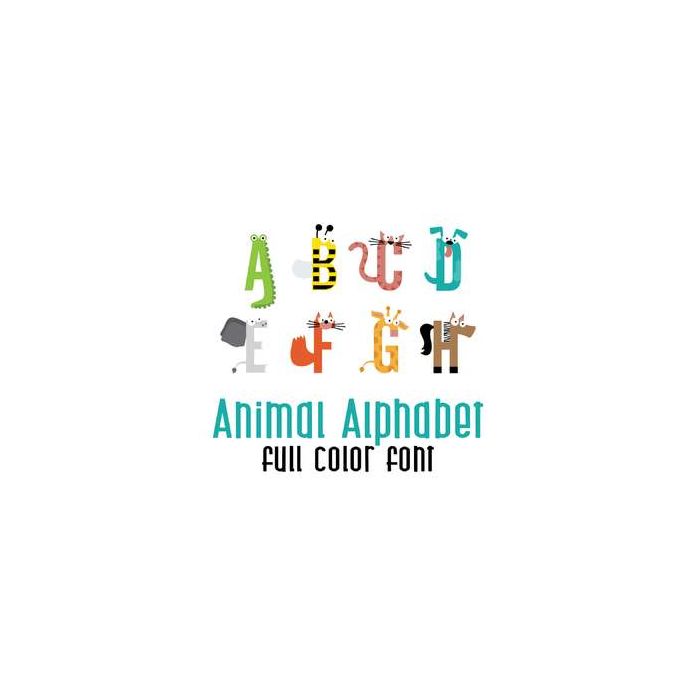
This adorable full color alphabet features animals representing every letter. Perfect teachers, classrooms, school, cards, crafts, gifts, decor, scrap book pages, planner stickers and more!